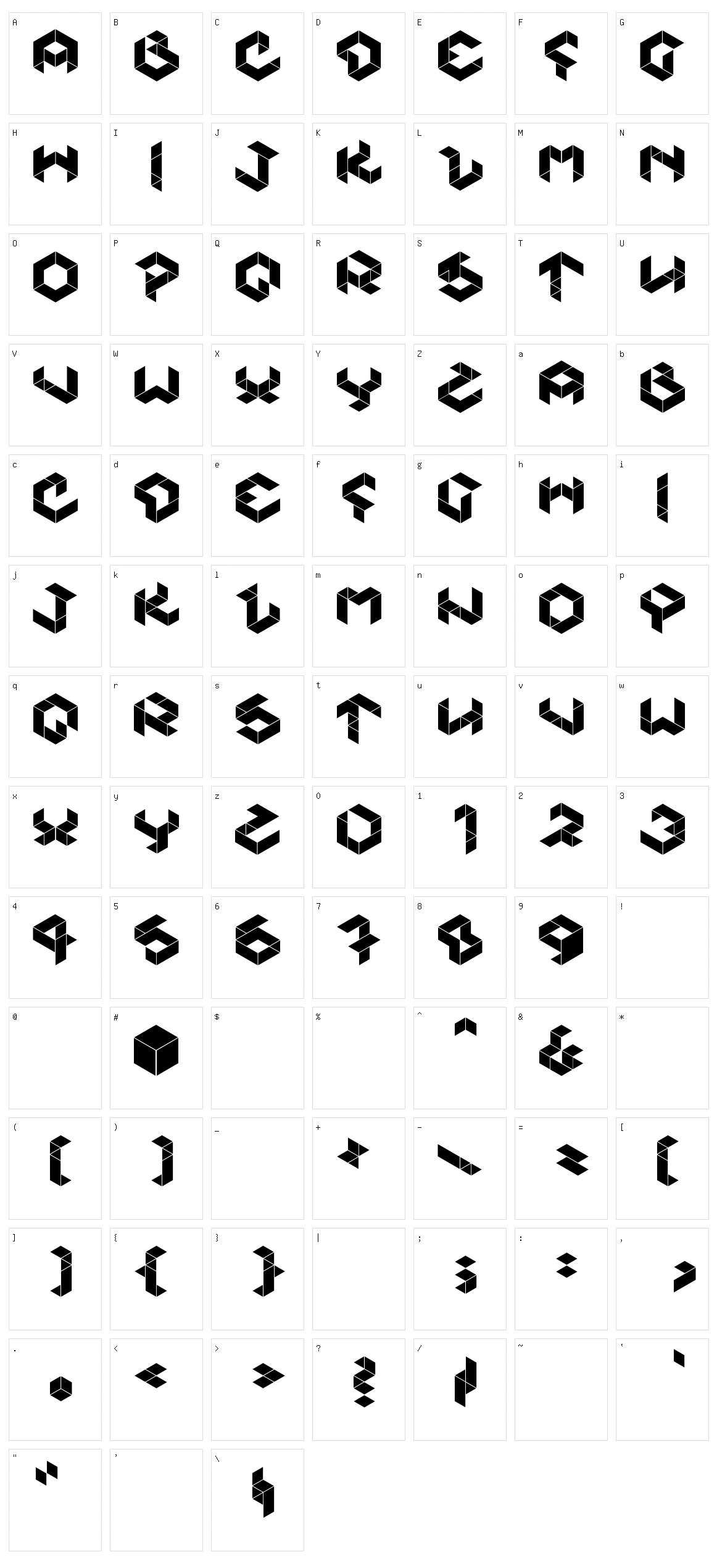
The free font Kubikmeta is carefully designed by Roman Lindebaum, showcasing a thoughtful balance of creativity and usability and falls under the Square font style. When you download the ZIP file, it contains only 11.77 KB of font files, making it lightweight and quick to download. Please review the license details below to understand permitted usage and distribution rights. If license information is not available, we recommend using this font for personal projects only or contacting the author directly for commercial usage permissions.